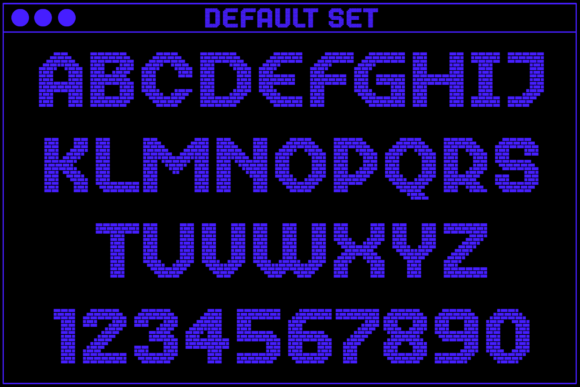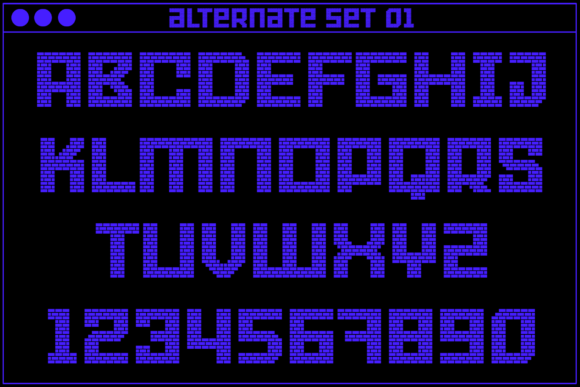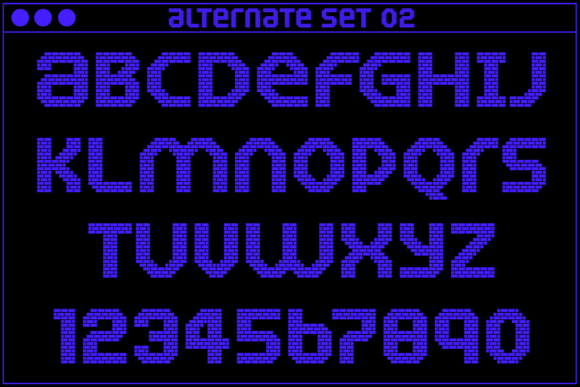
Getting Creative with the Perfect Pixelated Touch
Have you ever been stuck on a design project, staring at a blank canvas, wondering what that one element is missing? It’s that extra something that makes your creative project stand out from the crowd. For many designers, that missing piece is a unique font that adds a touch of personality to their work.
That’s where the MultiType Brick Mega Blocks Font comes in – a cool, uniquely shaped, pixelated display font that’s about to become your new go-to design resource. With its distorted and trendy aesthetic, this font is sure to add a high-quality, eye-catching element to any design project.
Introduction to MultiType Brick Mega Blocks Font
This free download is a game-changer for designers looking to add a creative twist to their work. With its PUA encoded features, accessing all glyphs and swashes is a breeze, making it easy to customize and experiment with different design options. Whether you’re working on a project with a transparent background or a bold, graphic design, the MultiType Brick Mega Blocks Font is the perfect addition to take your design to the next level.
Key Features of MultiType Brick Mega Blocks Font
- Unique Brick Pattern Design: The MultiType Brick Mega Blocks Font features a one-of-a-kind design, perfect for adding a creative touch to any project.
- High-Quality Design Resource: With a high-resolution design, this font is ideal for large-scale projects, such as billboards and posters.
- Transparent Background: This font includes a transparent background option, making it easy to customize and integrate into any design project.
- Perfect for Creative Projects: Use the MultiType Brick Mega Blocks Font to add a fun and playful touch to logos, branding materials, and other design projects.
Honest Review: MultiType Brick Mega Blocks Font
I recently had the chance to work with the MultiType Brick Mega Blocks Font, and I’m excited to share my thoughts on this design resource.
One of the things that immediately stood out to me was the high quality of the font. The transparent background made it easy to place the text on any design without worrying about a distracting background. This was a huge plus for my creative project!
Here are some of the things that work well with the MultiType Brick Mega Blocks Font:
- Wide range of styles and variations
- Easy to customize and edit
- Perfect for both digital and print designs
- Some of the characters may not be suitable for very small text sizes
Overall, I was impressed with the MultiType Brick Mega Blocks Font. While it may not be perfect, it’s definitely a valuable addition to any designer’s toolkit. If you’re looking for a reliable and versatile font for your next creative project, I’d definitely recommend giving it a try.
How to Use MultiType Brick Mega Blocks Font
The MultiType Brick Mega Blocks Font is a high-quality design resource that can elevate your creative project. This versatile font is perfect for designers and artists looking for a unique and modern aesthetic.
Tips for Getting the Most Out of the Font
To get the most out of the MultiType Brick Mega Blocks Font, use it in combination with other design elements, such as graphics and images. Experiment with different font sizes and styles to create a unique look.
The MultiType Brick Mega Blocks Font is perfect for a variety of creative projects, including:
- UI/UX design
- Branding and marketing materials
- Editorial and publishing projects
Transparent Background and High Quality